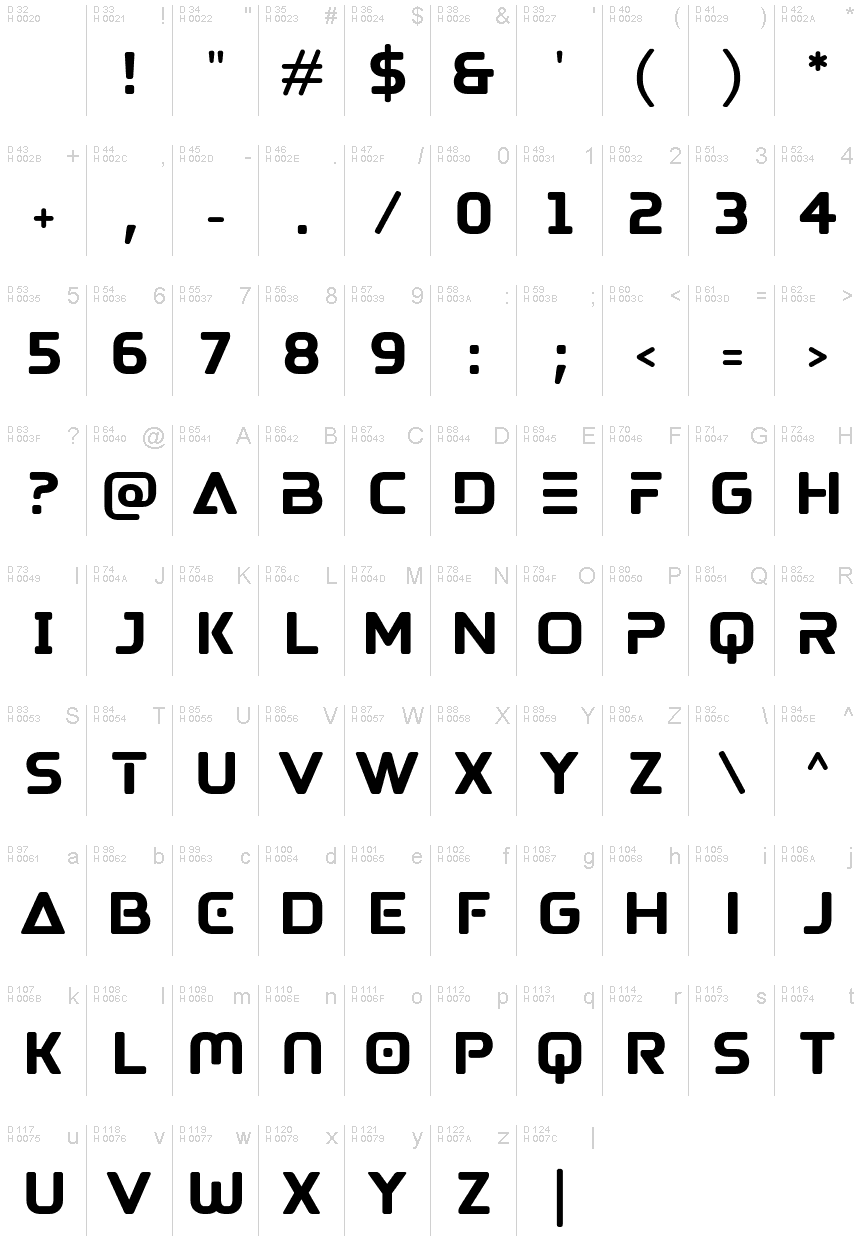
Teqto Demo Regular
Teqto, designed by Faqih Fawaji, is a display font that embodies a futuristic aesthetic with its semi-expanded width and cutting-edge design. The sleek curves and sharp angles merge to form a typeface that breathes modernity and sophistication. Its distinctive letterforms exude an avant-garde vibe, making it an ideal choice for projects that aim to stand out with a contemporary flair.
The bold presence of Teqto offers high visual impact, ensuring legibility while maintaining style. This font is perfectly suited for creative endeavors such as branding, tech-oriented advertising, and digital media that require a font with character and presence. Whether you're crafting titles for a sci-fi movie poster or designing an innovative app interface, Teqto's stylized features will infuse your project with forward-thinking elegance.